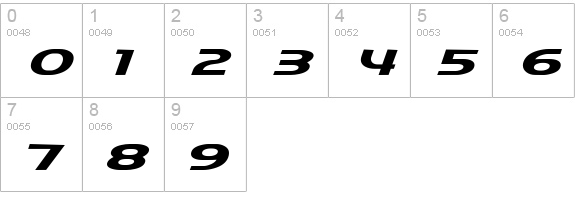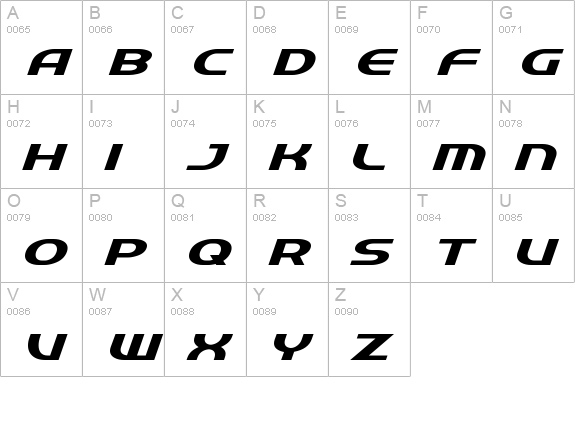
QuickExpress Font Details
Introducing QuickExpress, a stunning font that effortlessly combines modern elegance with a touch of playfulness. This versatile typeface is perfect for all your design needs, whether it's creating eye-catching logos, designing captivating posters, or crafting beautiful website headers. QuickExpress is designed to make a lasting impression, with its bold and clean lines that exude confidence and professionalism. What sets QuickExpress apart is not just its impeccable design, but also its accessibility. We believe that great design should be available to everyone, which is why QuickExpress is offered completely free of charge. That's right, you can download this incredible font without spending a dime! It's our way of supporting the creative community and ensuring that you have the tools you need to bring your vision to life. To get your hands on QuickExpress, simply head over to FontsMarket.com. There, you'll find a vast collection of high-quality fonts, including QuickExpress, ready for you to download and use in your projects. With just a few clicks, you'll have access to this exceptional font, allowing you to effortlessly elevate your designs and make them truly stand out. So why wait? Embrace the power of QuickExpress and take your design game to the next level. Download this remarkable font today and unlock endless possibilities for your creative endeavors. Remember, it's free, so there's no reason not to give it a try. Don't miss out on this incredible opportunity to enhance your designs with QuickExpress, available exclusively at FontsMarket.com.